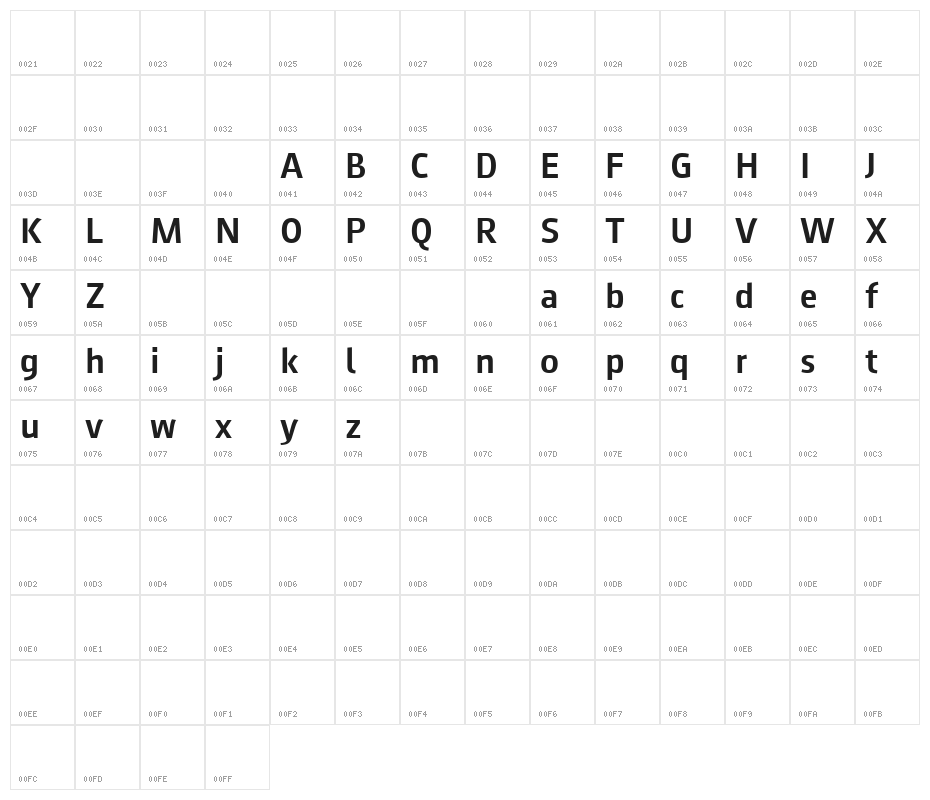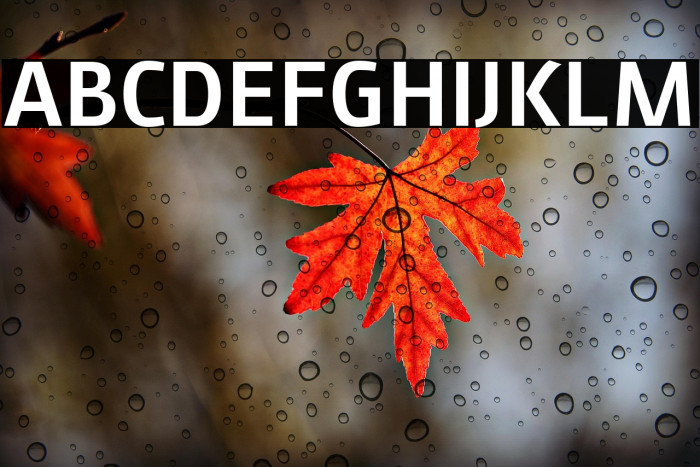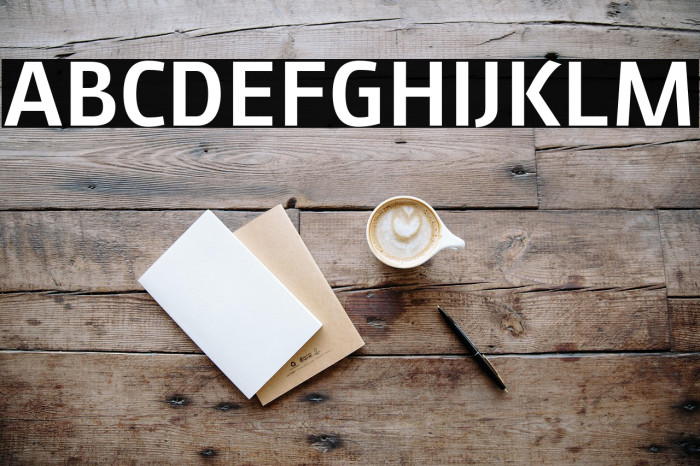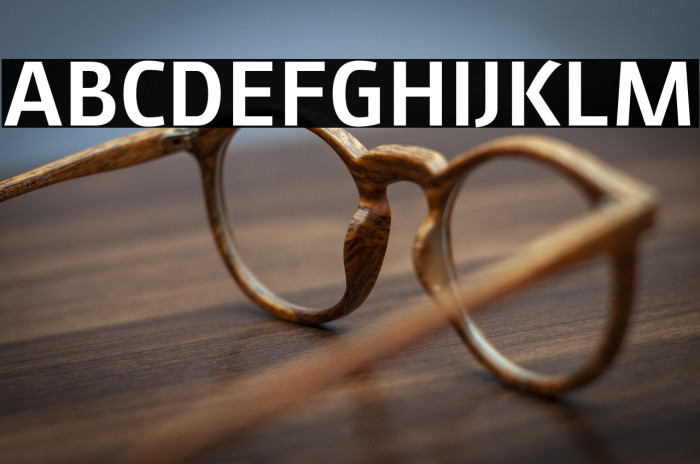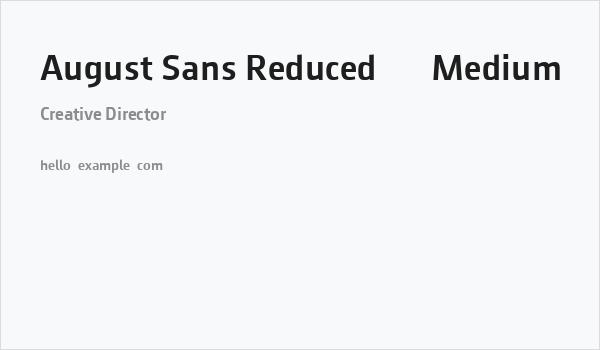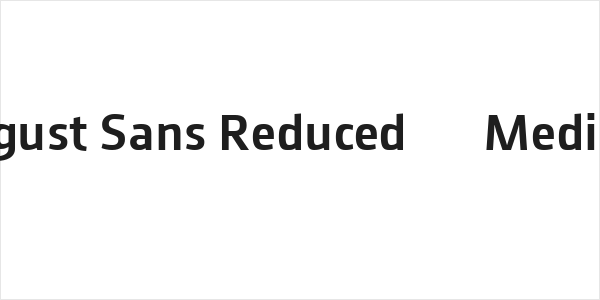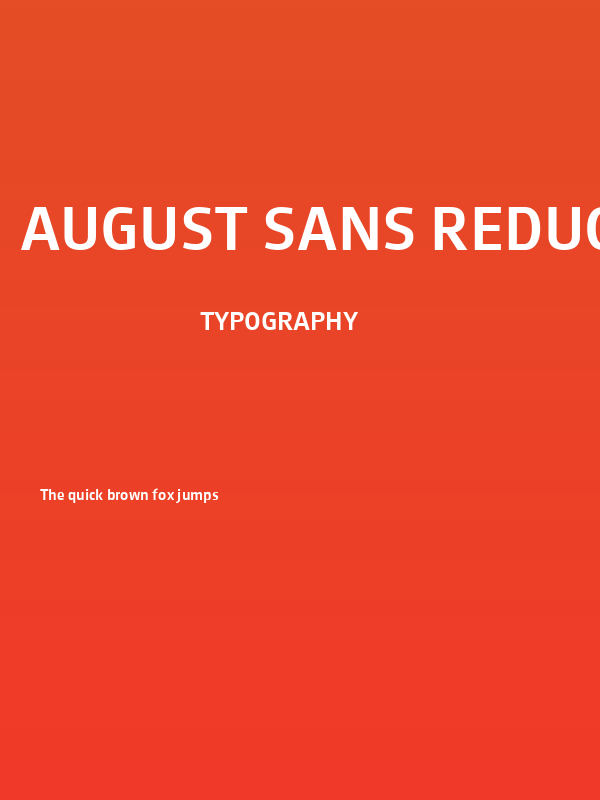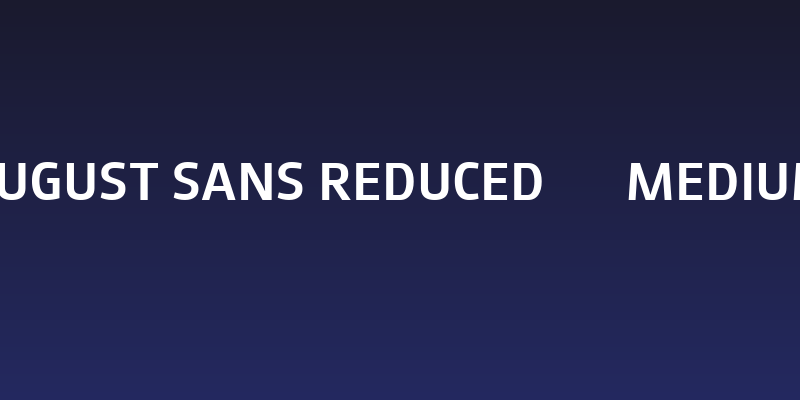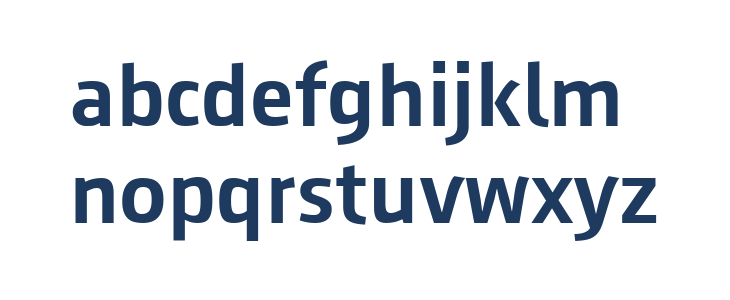
August Sans Reduced 65 Medium Font
August Sans Reduced 65 Medium Description
This typeface features a clean and modern sans-serif design, characterized by its geometric shapes and uniform stroke widths. The uppercase letters are bold and assertive, while the lowercase letters maintain a consistent and harmonious appearance. The font exhibits a slightly condensed width, making it suitable for a variety of applications where space efficiency is important. Its simplicity and clarity make it highly legible, even at smaller sizes. The overall style is contemporary, with a focus on functionality and readability.
| Proposed Projects | Ideal for branding, advertising, web design, and editorial projects where clarity and modernity are key. |